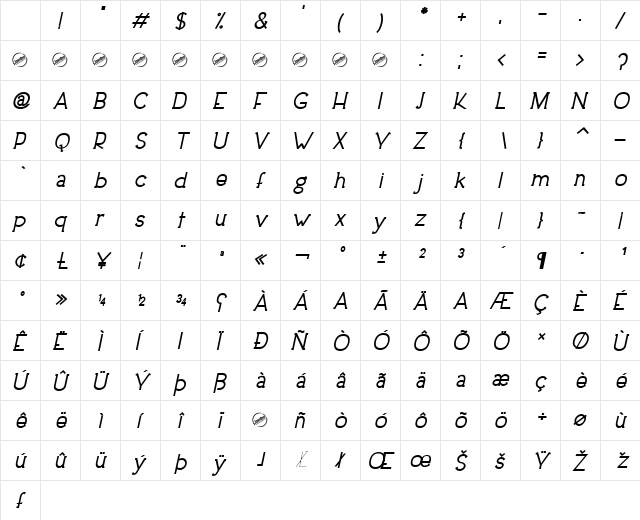
Complete Downtown Elegance Bold Italic glyph index. Displaying only characters natively supported by Downtown Elegance Bold Italic font.
Downtown Elegance is a composed and adaptable typeface that performs quietly and consistently across a wide range of design contexts. The slanted form adds forward momentum and visual energy. Its bold stroke weight gives it real presence on the page.
Pro Tip: Use Downtown Elegance for emphasis, pull quotes, and subheadings where its slanted energy can add rhythm to the layout.